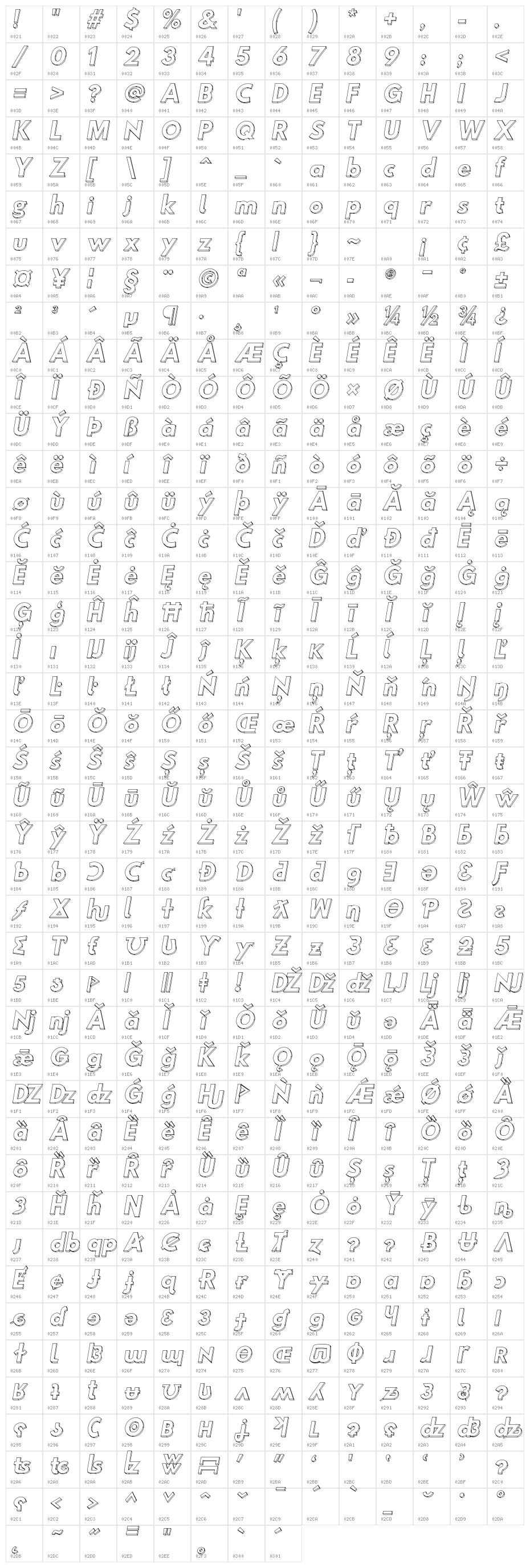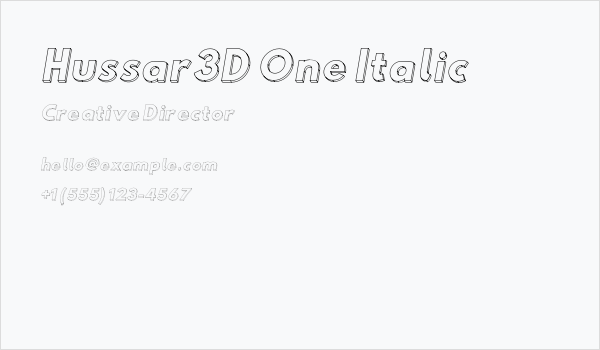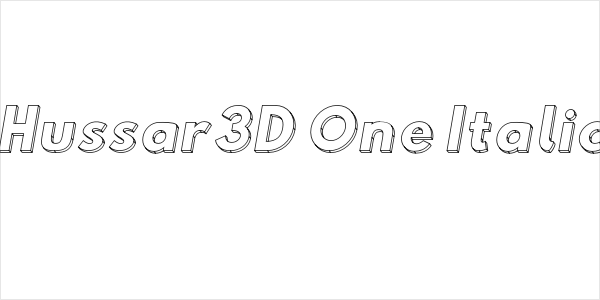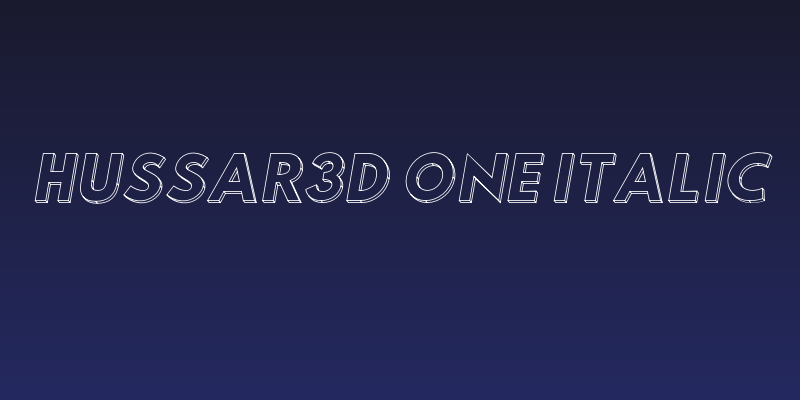
Hussar3D One Italic Font
Hussar3D One Italic Description
This font features a bold, three-dimensional design with an italic slant, giving it a dynamic and modern appearance. The characters are outlined, creating a sense of depth and shadow that makes each letter stand out. The uppercase and lowercase letters maintain a consistent style, with clean lines and geometric shapes. The numerals and special characters follow the same design principles, ensuring uniformity across all glyphs. This font's unique 3D effect and italic angle make it suitable for eye-catching designs.
Proposed ProjectsIdeal for posters, headlines, logos, and any design requiring a modern, standout typeface.